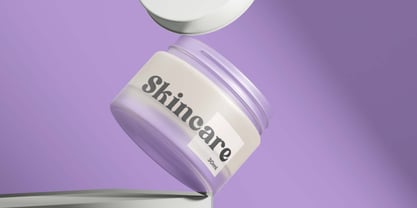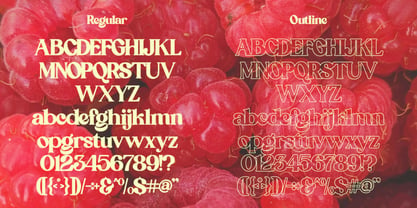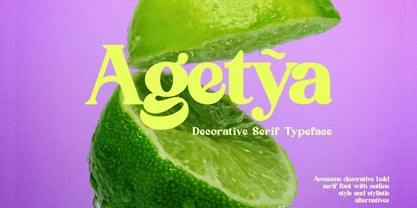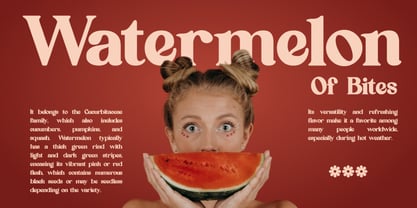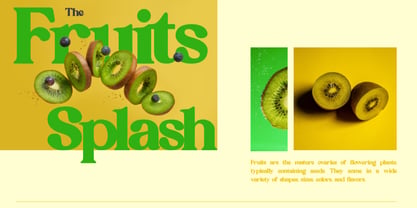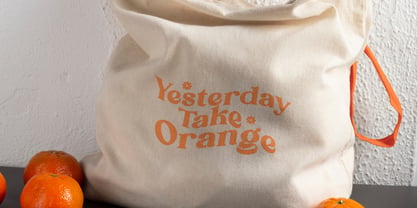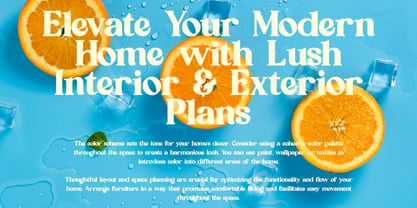
Agetya
Agetya is a bold and decorative serif typeface that combines expressive curves with vintage-inspired shapes. Designed to command attention, its thick strokes and playful contrast give it a lively yet elegant personality. The unique form of each letter brings a handcrafted charm that feels both nostalgic and contemporary. Available in Regular and Outline styles, Agetya includes uppercase, lowercase, numerals, and punctuation — ideal for standout titles, posters, logos, packaging, and editorial headlines. Its distinctive rhythm and stylish weight make it perfect for creative projects that need both boldness and flair.